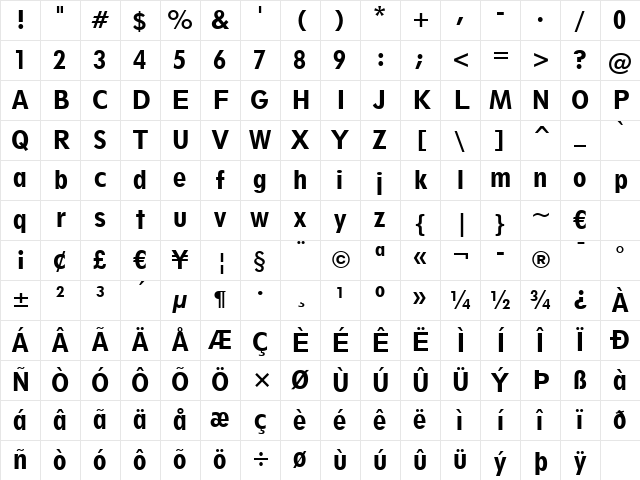
Geometr212 BkCn BT Heavy
Geometr212 BkCn BT Family
Complete Geometr212 BkCn BT Heavy glyph index. Displaying only characters natively supported by Geometr212 BkCn BT Heavy font.
Design Context for Geometr212 BkCn BT
Geometr212 BkCn BT is a composed and adaptable typeface that performs quietly and consistently across a wide range of design contexts.
Pro Tip: Use Geometr212 BkCn BT in both headline and body roles to test its range before committing to a single application.